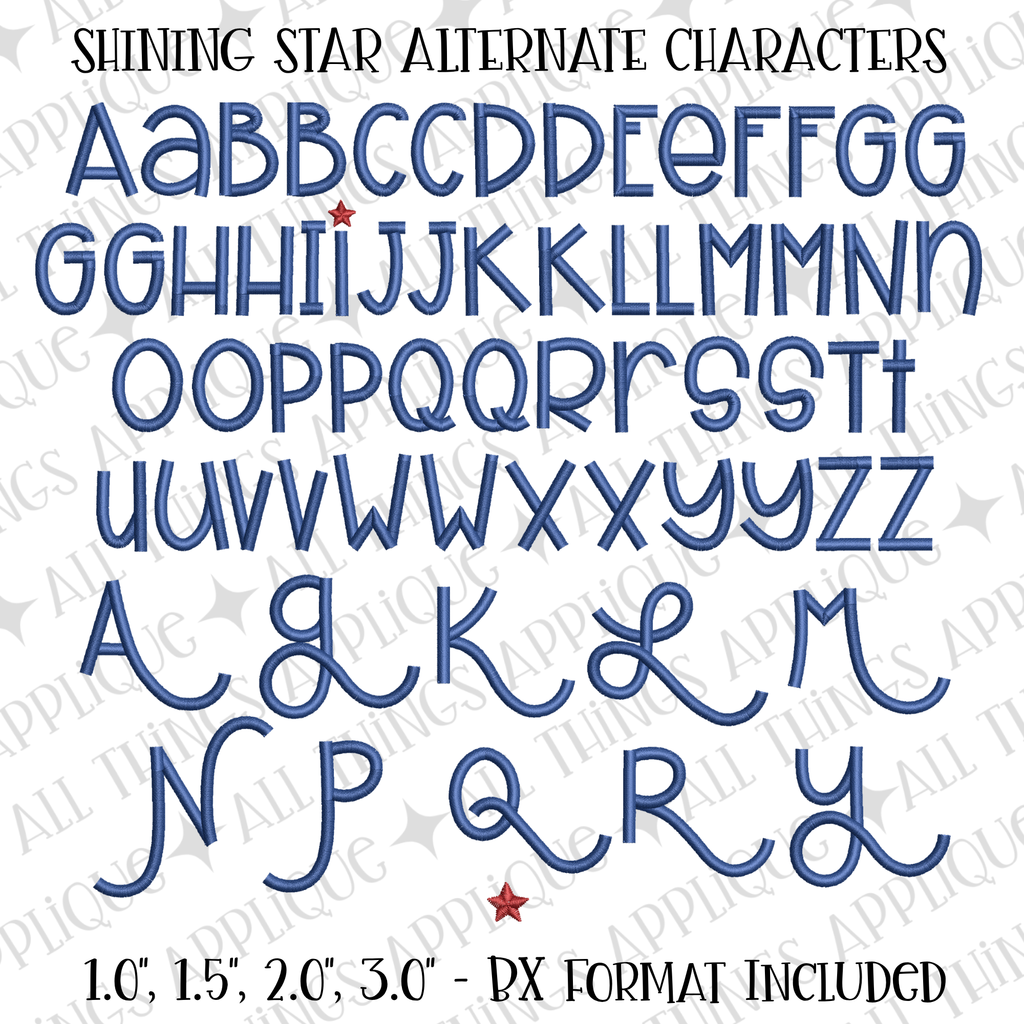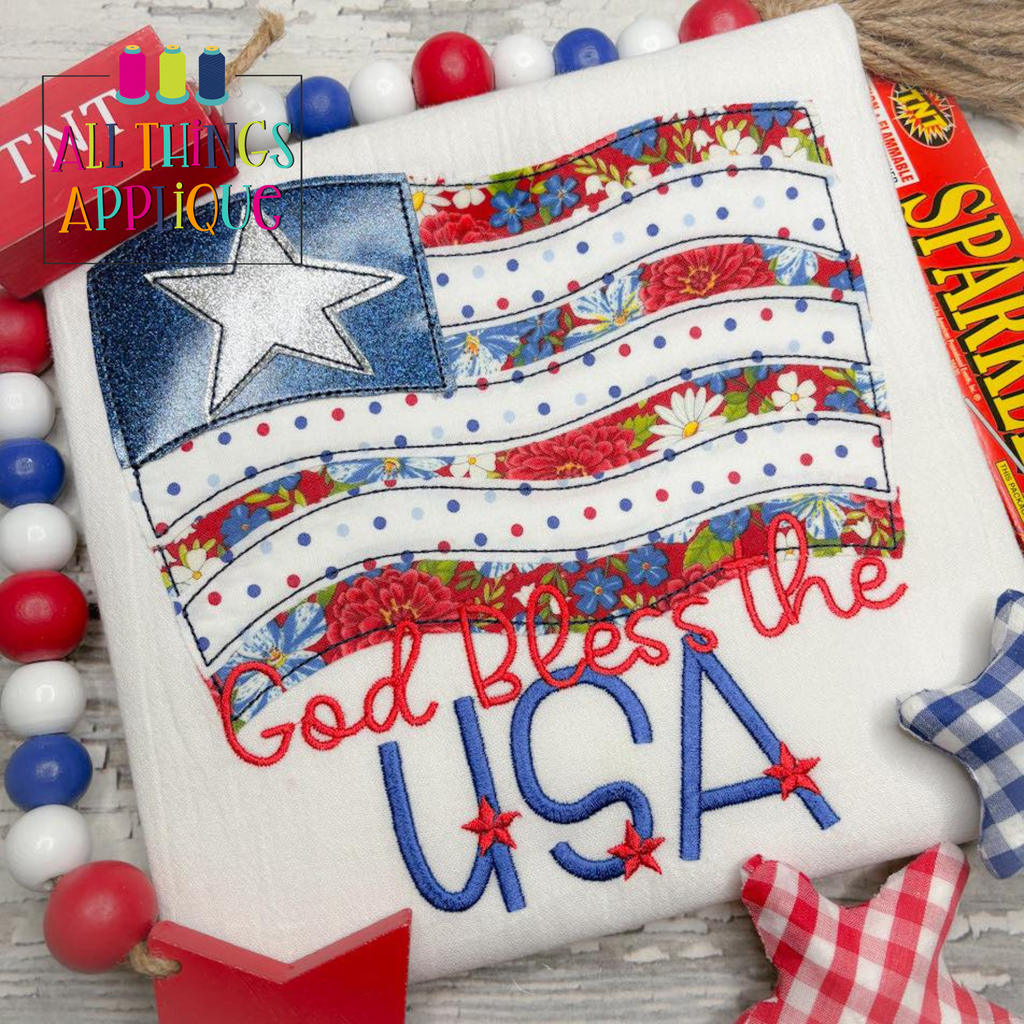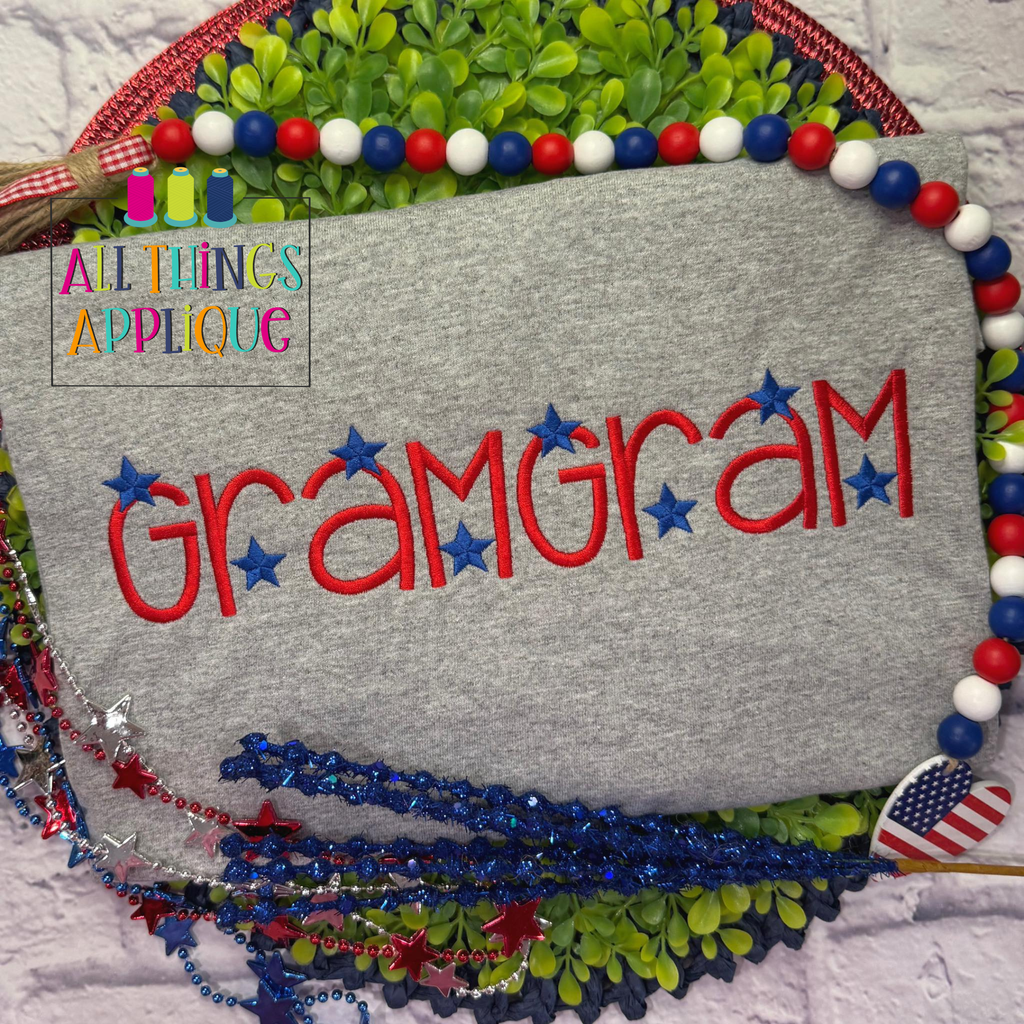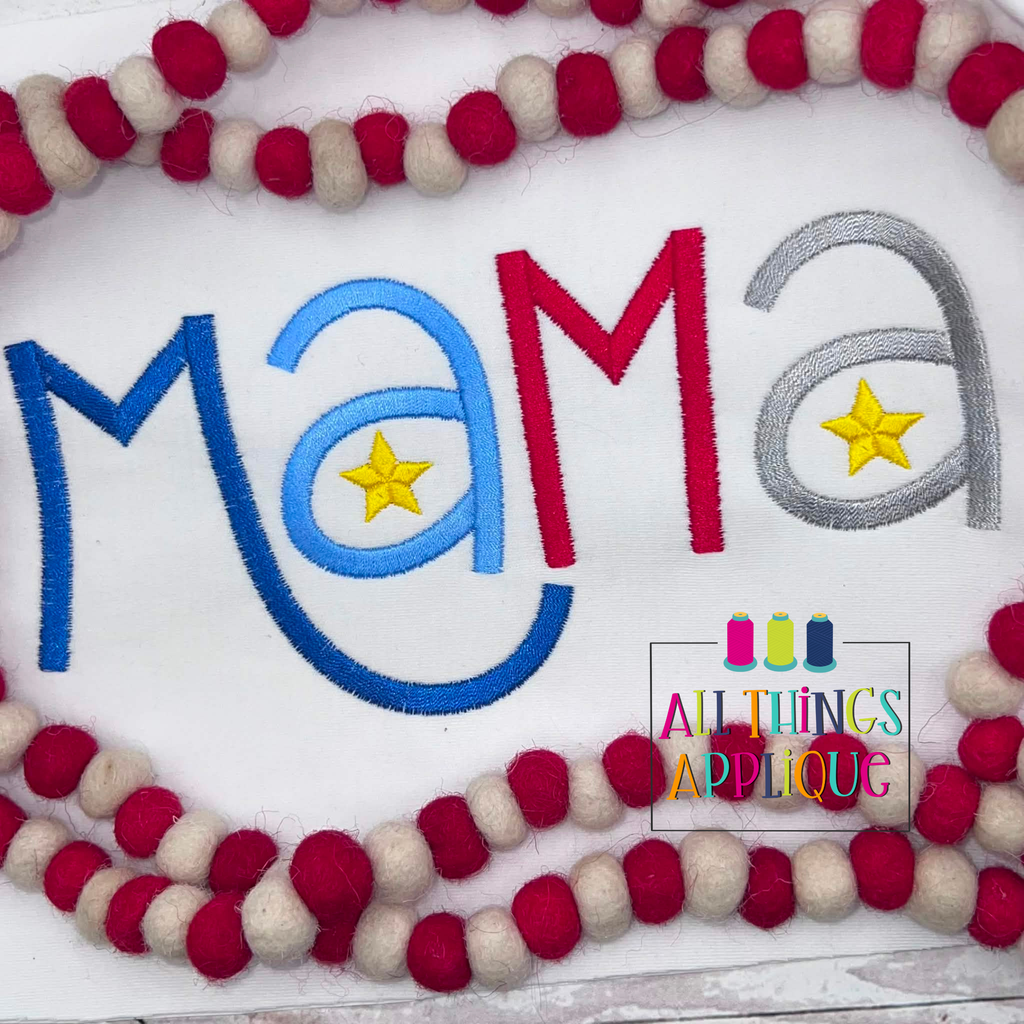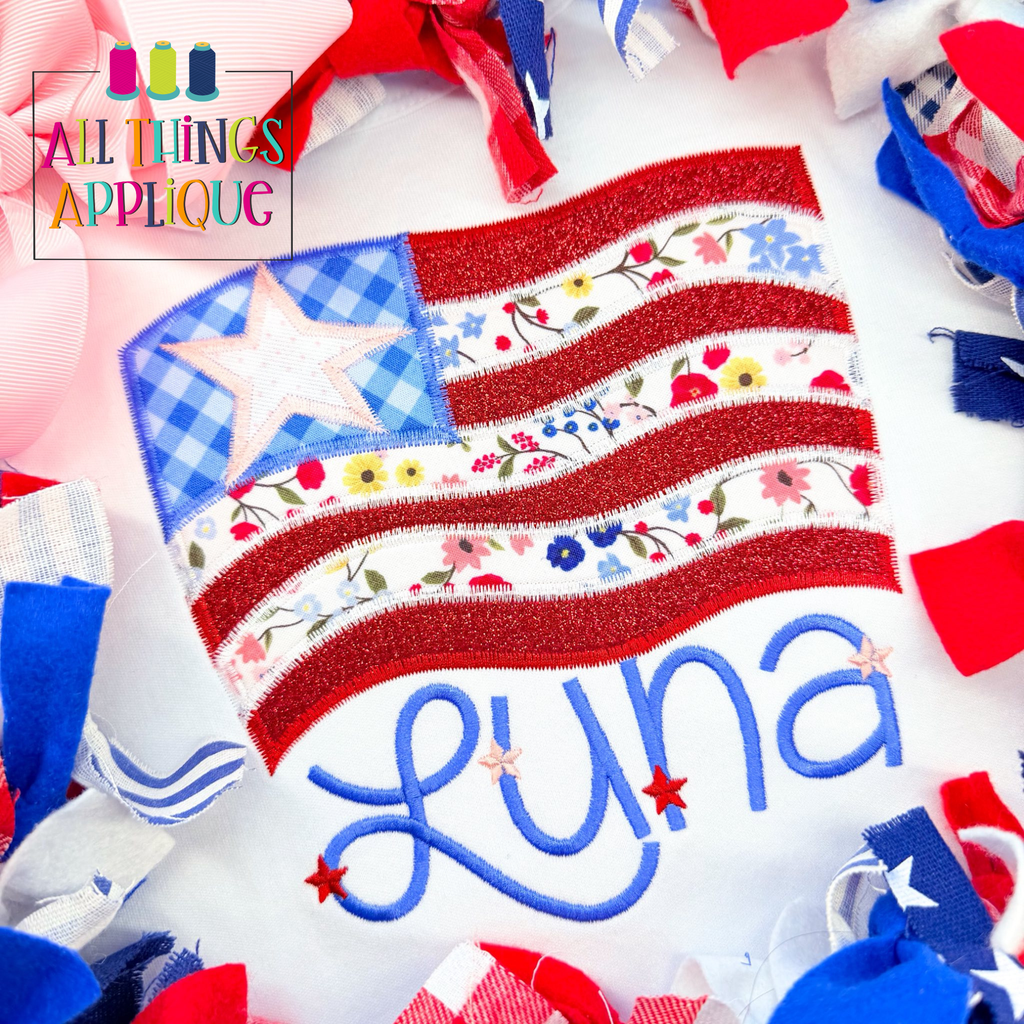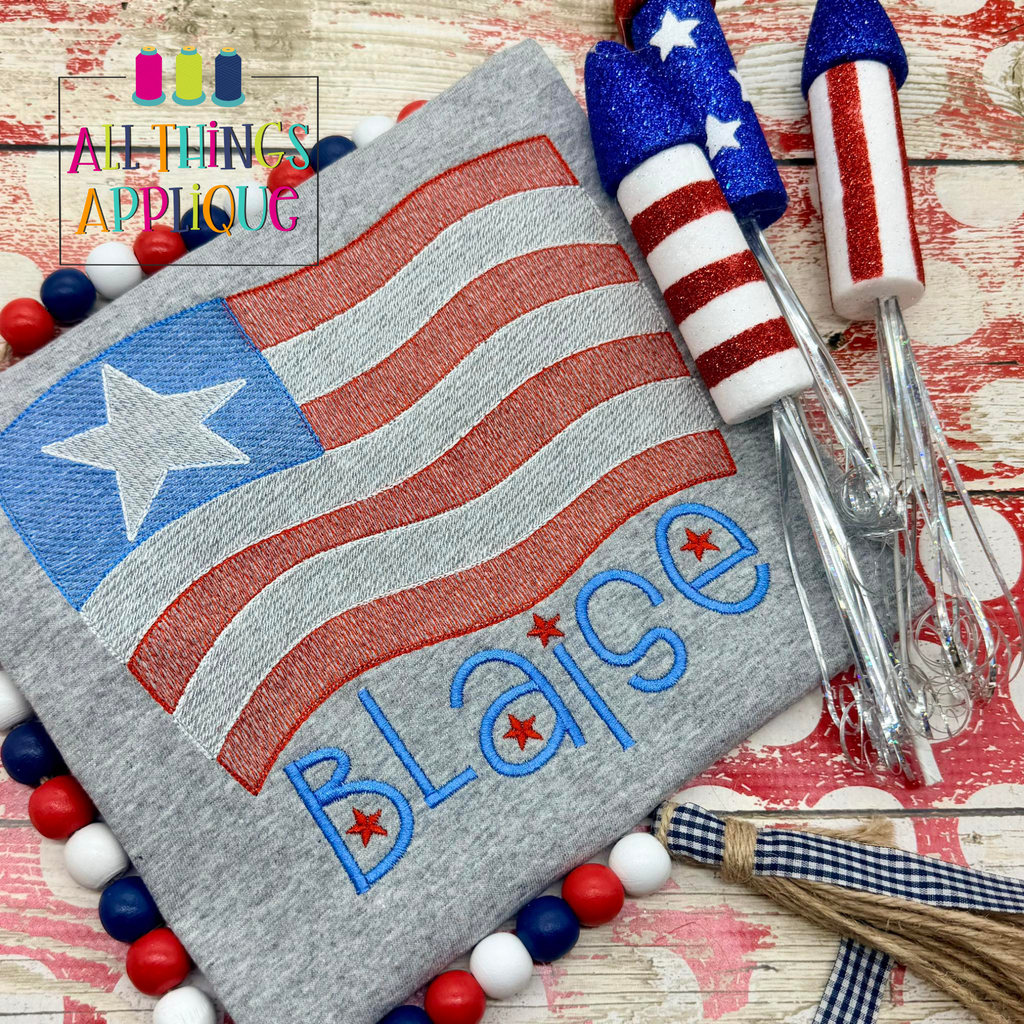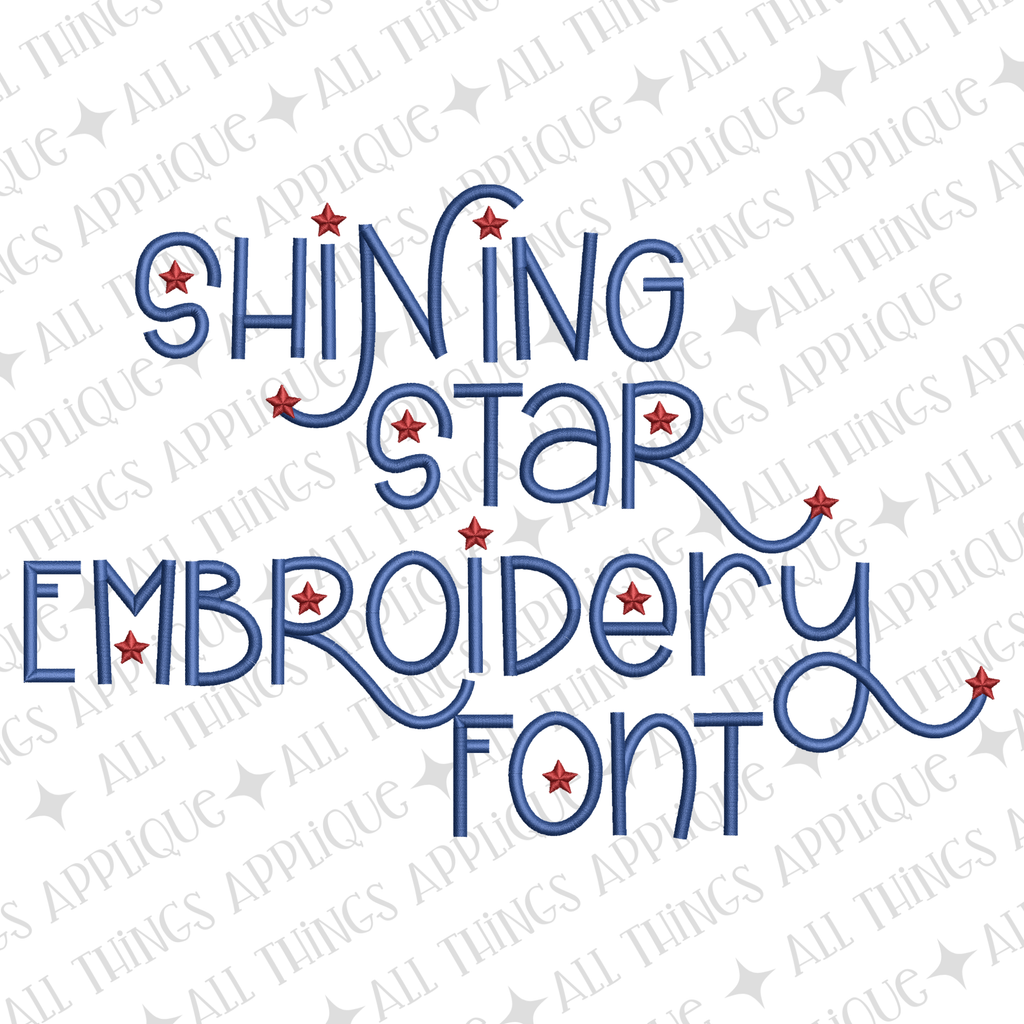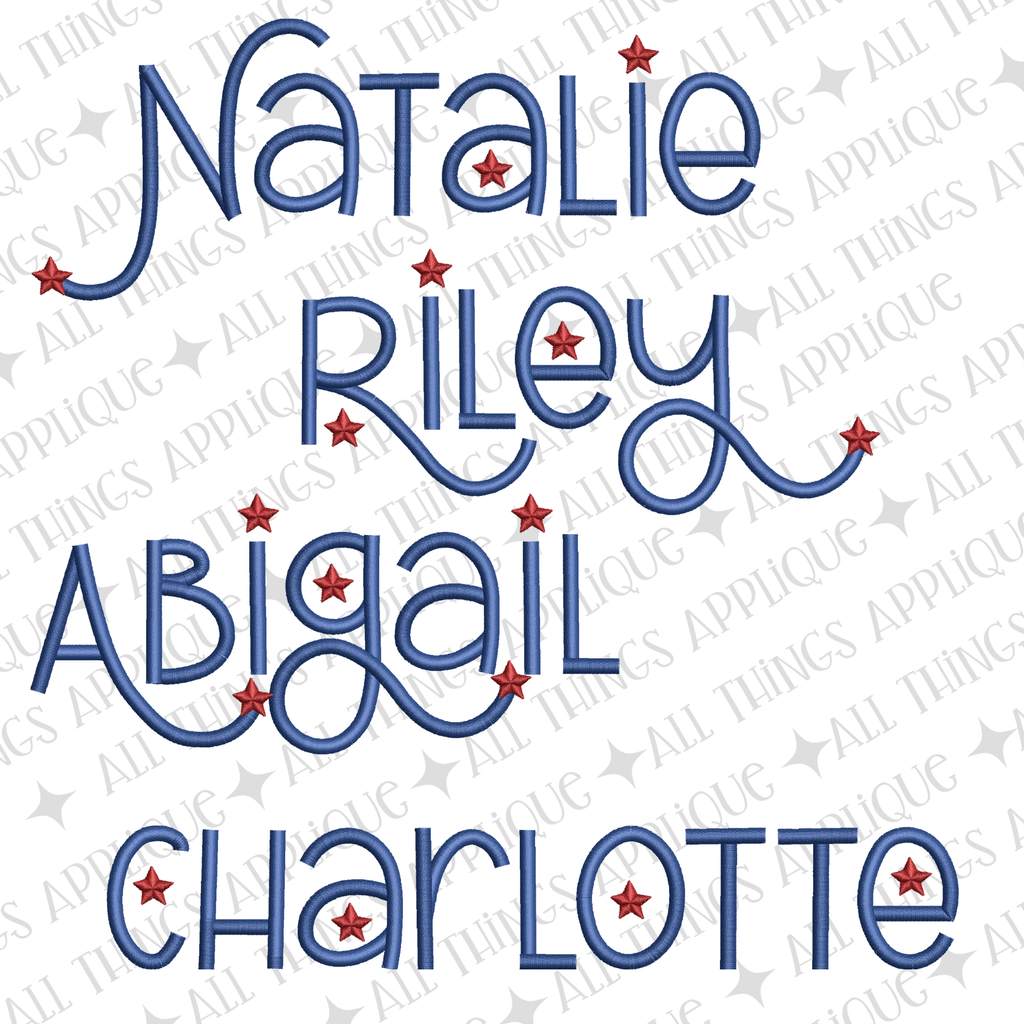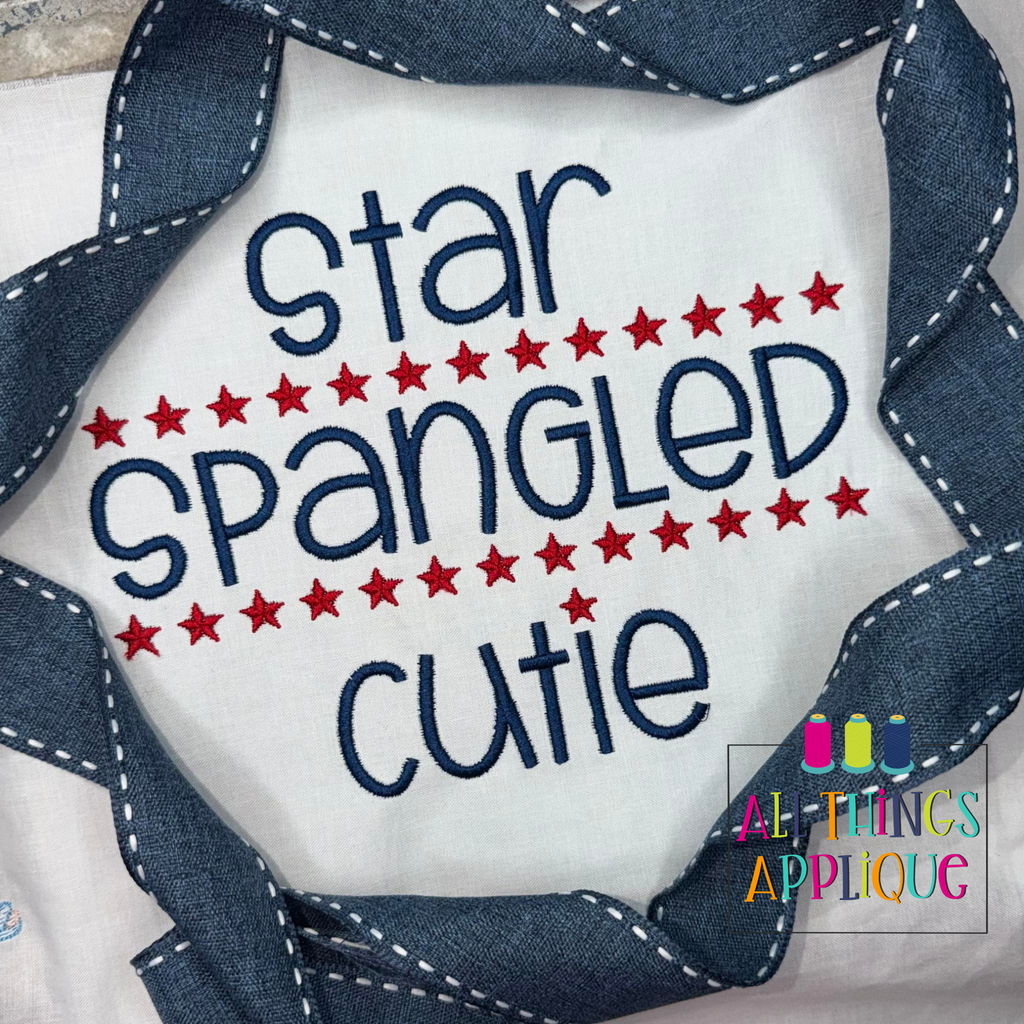
- Shining Star Embroidery Font
About the Shining Star Embroidery Font
Add a touch of sparkle and patriotic charm to your embroidery projects with the Shining Star Embroidery Font! This exclusive font was hand-lettered by me just for All Things Applique and is perfect for creating standout designs for patriotic holidays, summer celebrations, sports themes, and any project that needs a little extra star power.
The Shining Star Embroidery Font includes:
• 26 uppercase letters
• 8 lowercase letters
• 10 alternate uppercase letters featuring a beautiful oversized swirl underneath
Whether you're stitching for the Fourth of July, Memorial Day, Veterans Day, cheer, sports, or simply love stars and swirls, the Shining Star Embroidery Font will add the perfect finishing touch to your creations.